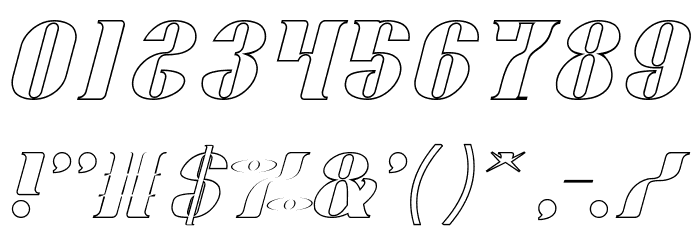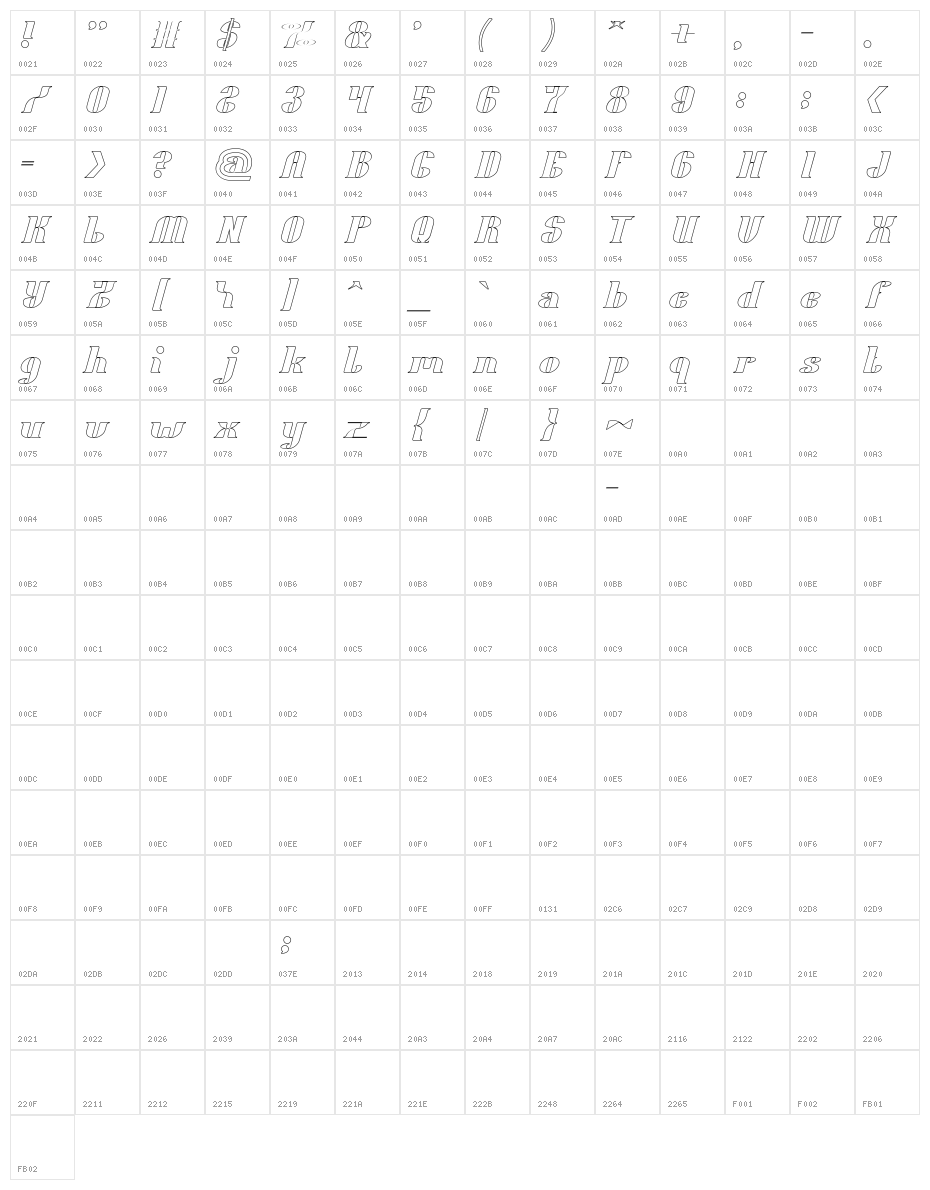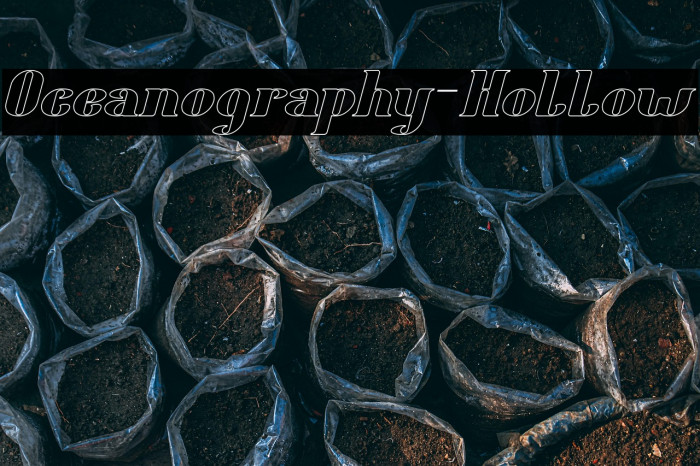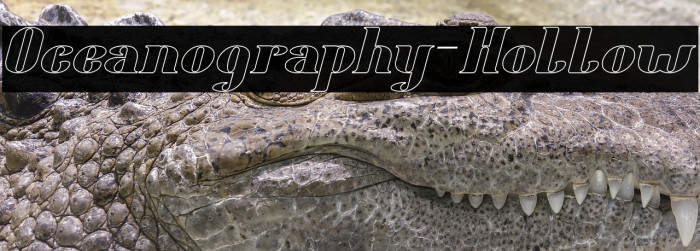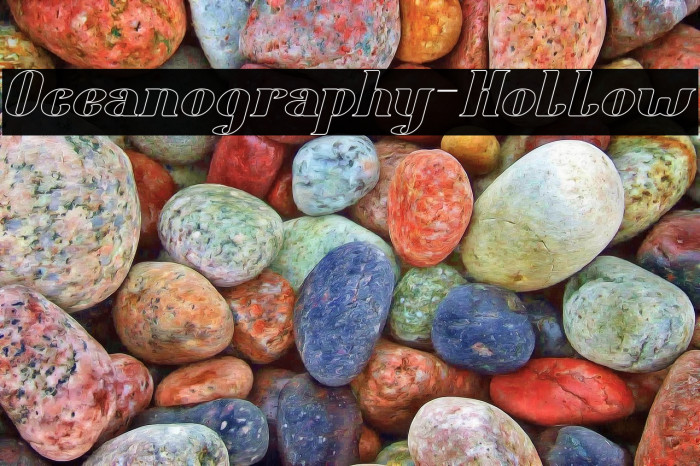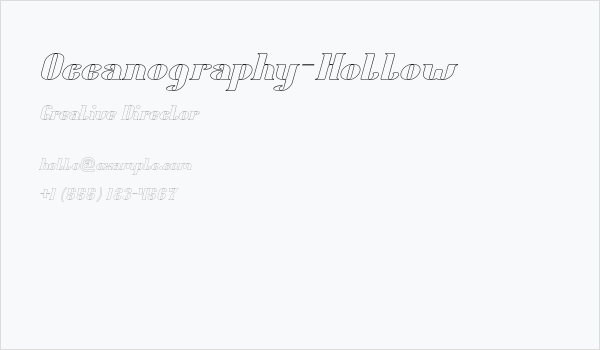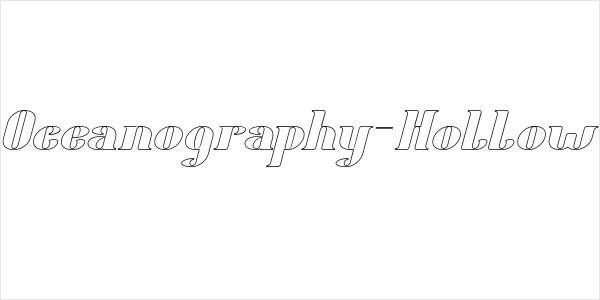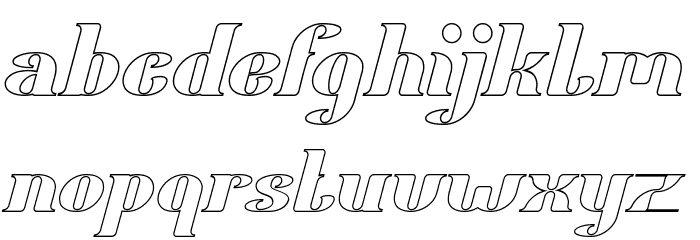
Oceanography-Hollow Font
Oceanography-Hollow Description
This font features a unique hollow design with a modern twist, characterized by its outlined letters that create a sense of depth and dimension. The uppercase and lowercase letters maintain a consistent style, with smooth curves and sharp angles that give it a dynamic appearance. The numerals and special characters follow the same hollow aesthetic, ensuring uniformity across all glyphs. This font's playful yet structured look makes it versatile for various design applications. Its clean lines and open spaces make it easy to read while adding a touch of creativity.